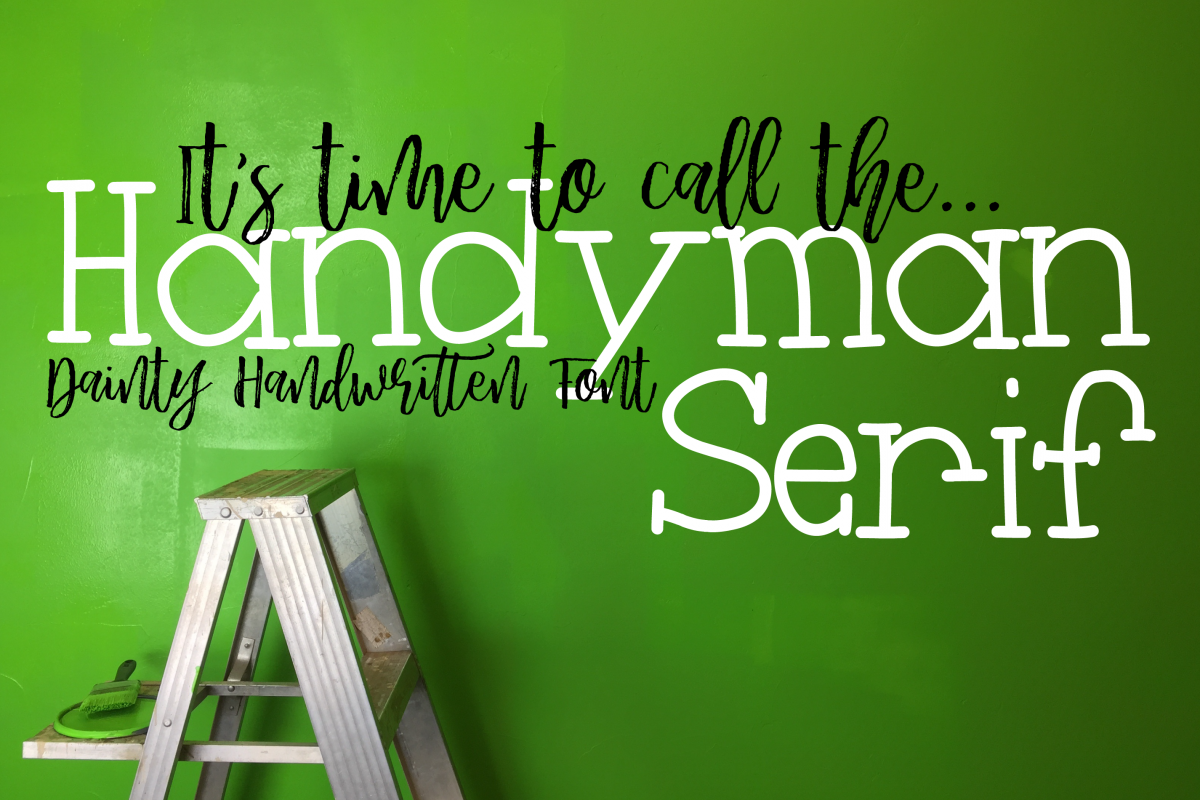
Handyman Serif Handdrawn Font
Handyman Serif is a handwritten serif font. It is perfect for logos, headlines, and advertising. This serif font features A-Z, a-z, 0-9, and basic extra characters.